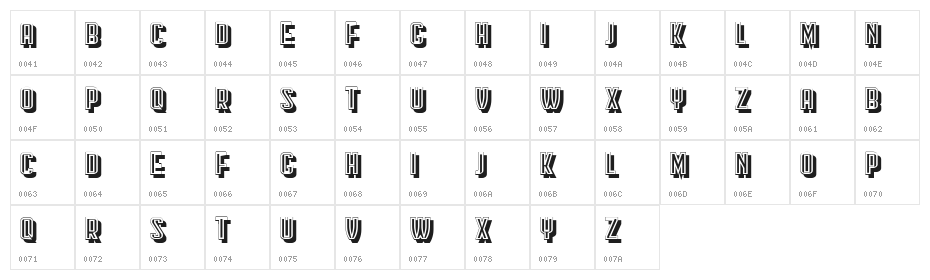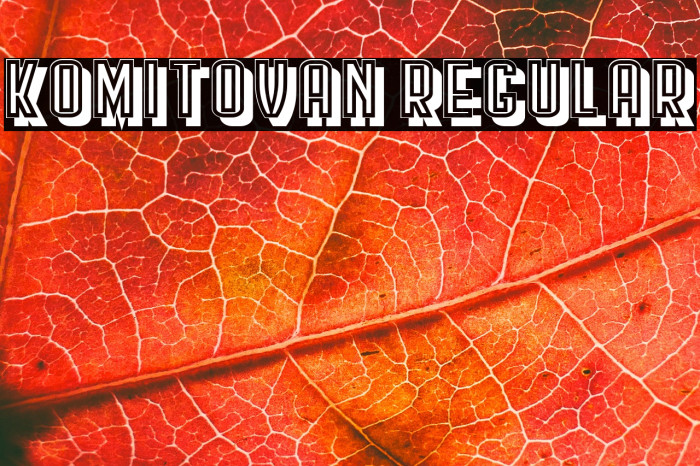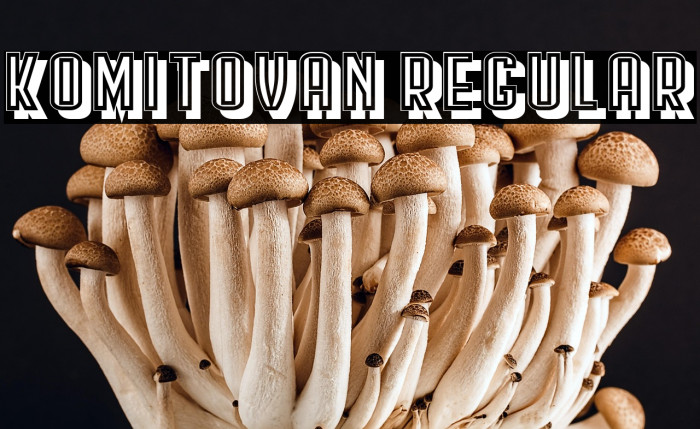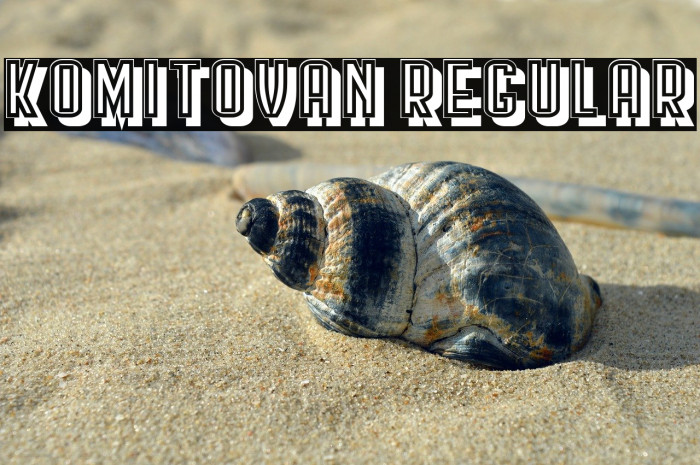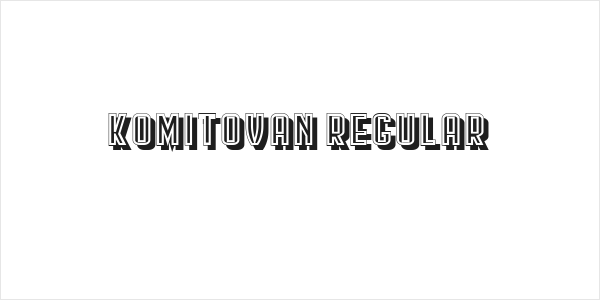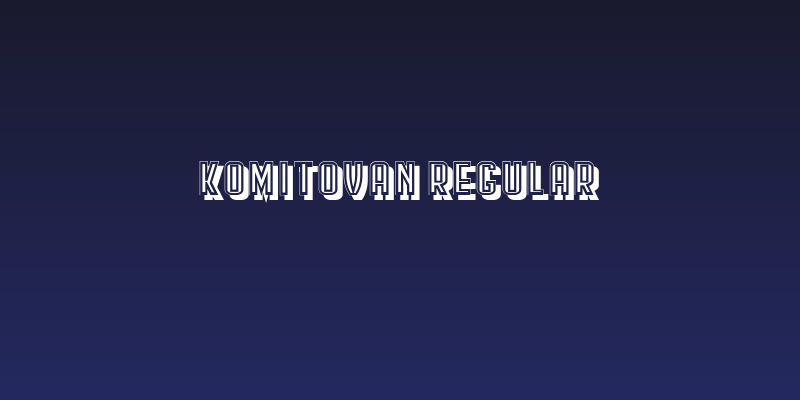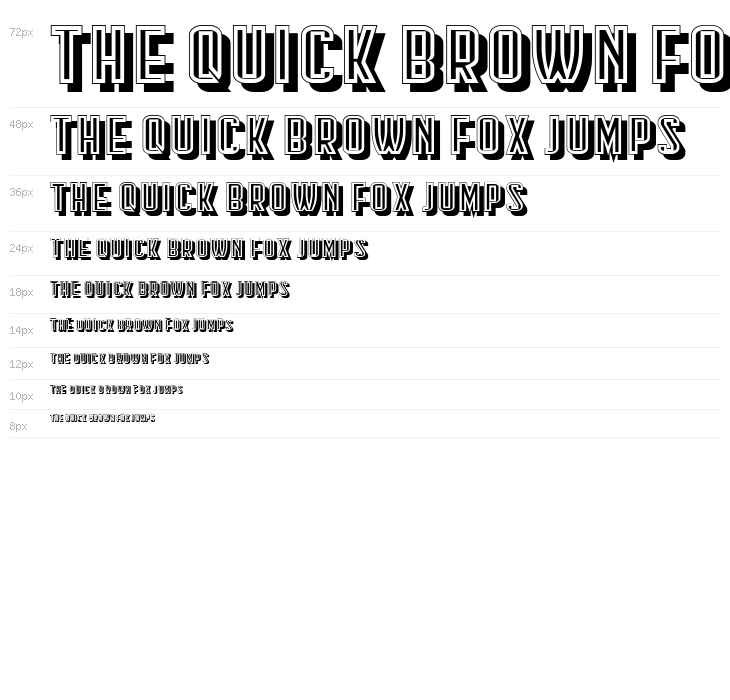
Komitovan Regular Font
Komitovan Regular Description
This font features a bold, decorative style with a strong 3D effect. The characters are uppercase, with a shadow that gives a sense of depth and dimension. The design is geometric and structured, with clean lines and sharp angles. The font's boldness and unique style make it stand out, ideal for attention-grabbing headlines or titles. The shadow effect adds a layer of complexity, making it suitable for projects that require a dynamic and impactful visual presence.